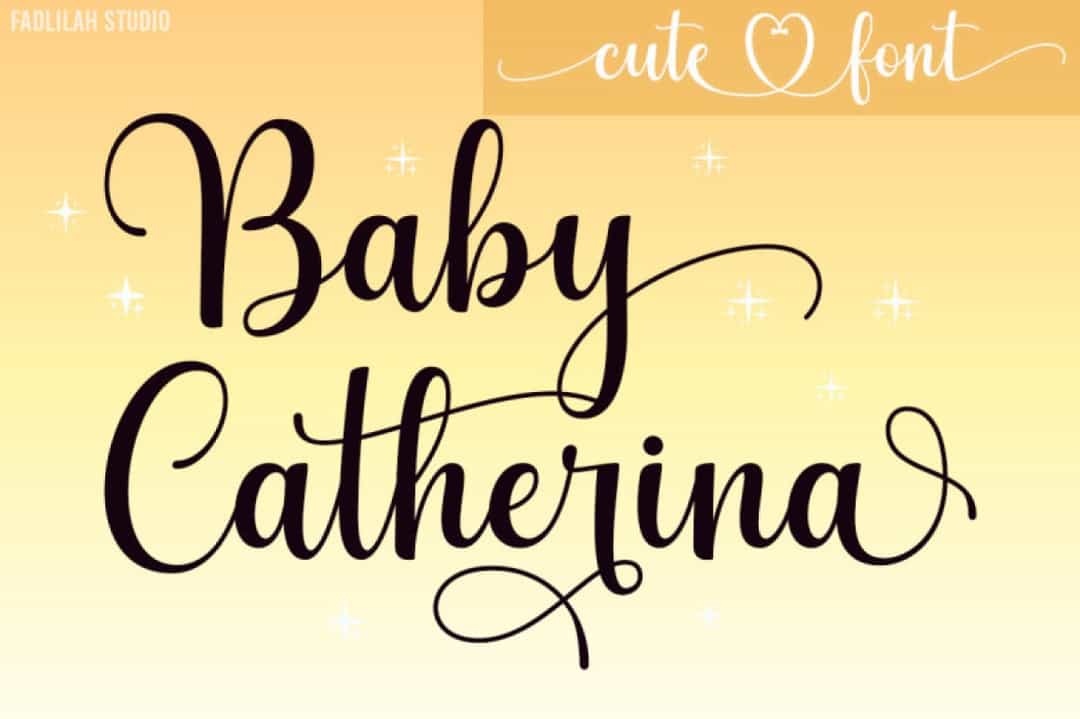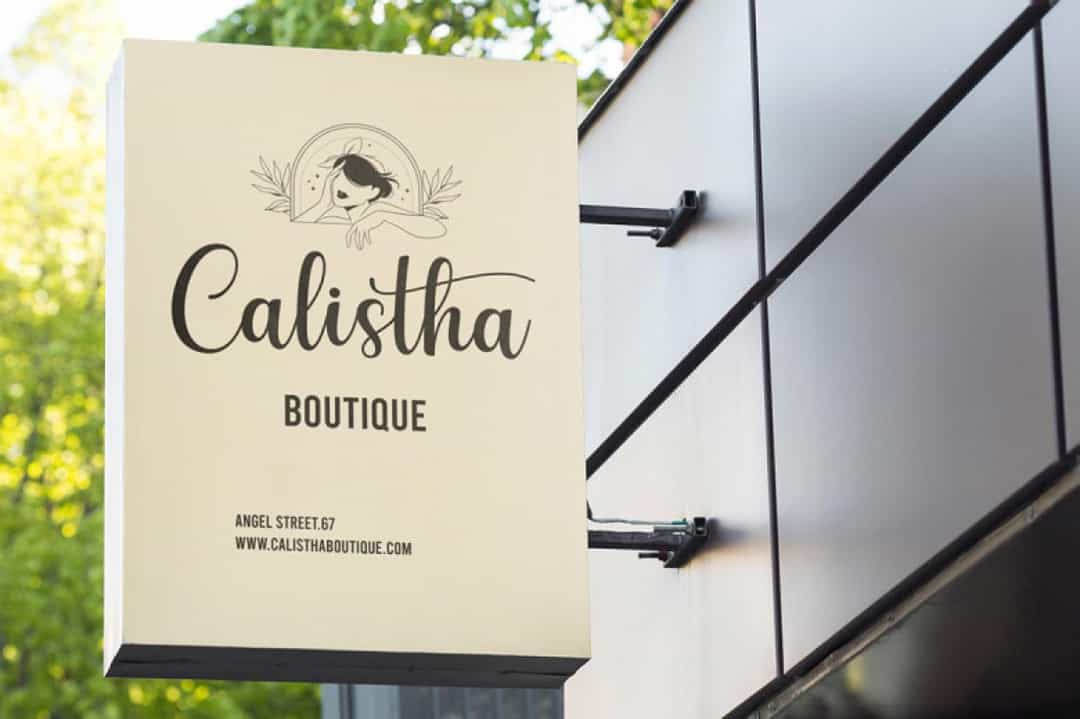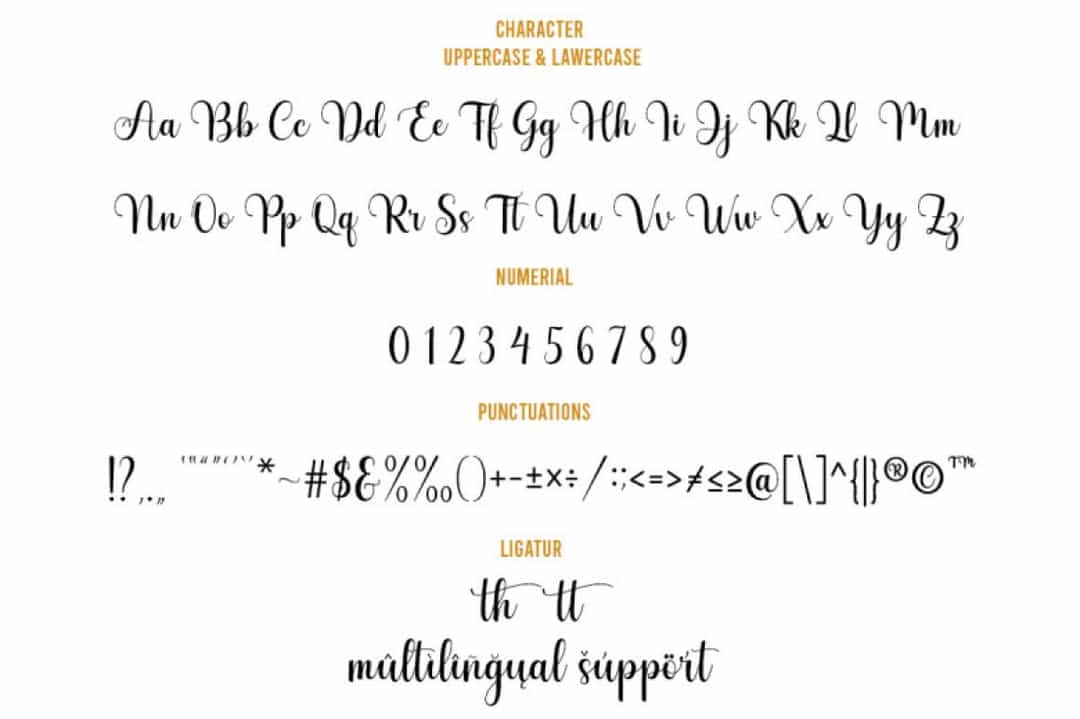
Baby Catherina is an elegant yet fluid script font, offering sophisticated touches for all your projects. Fall in love with its distinctive yet timeless design to craft unforgettable creations!